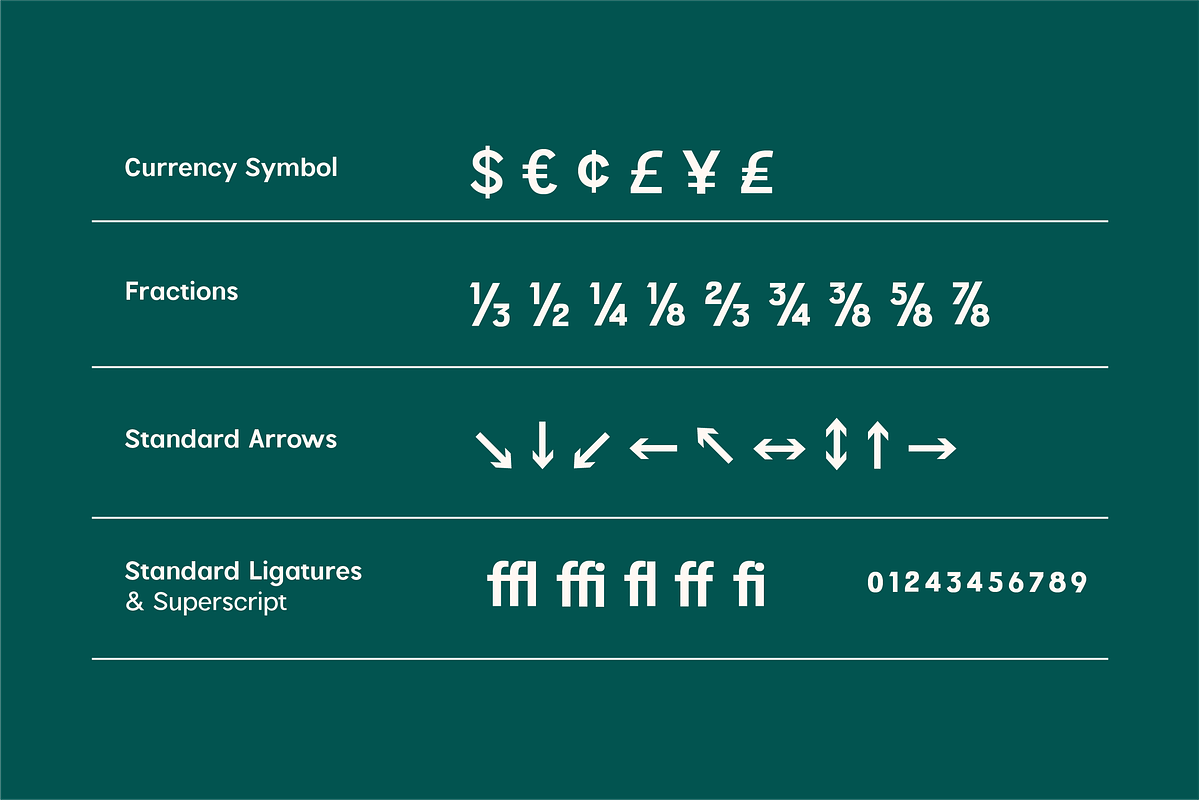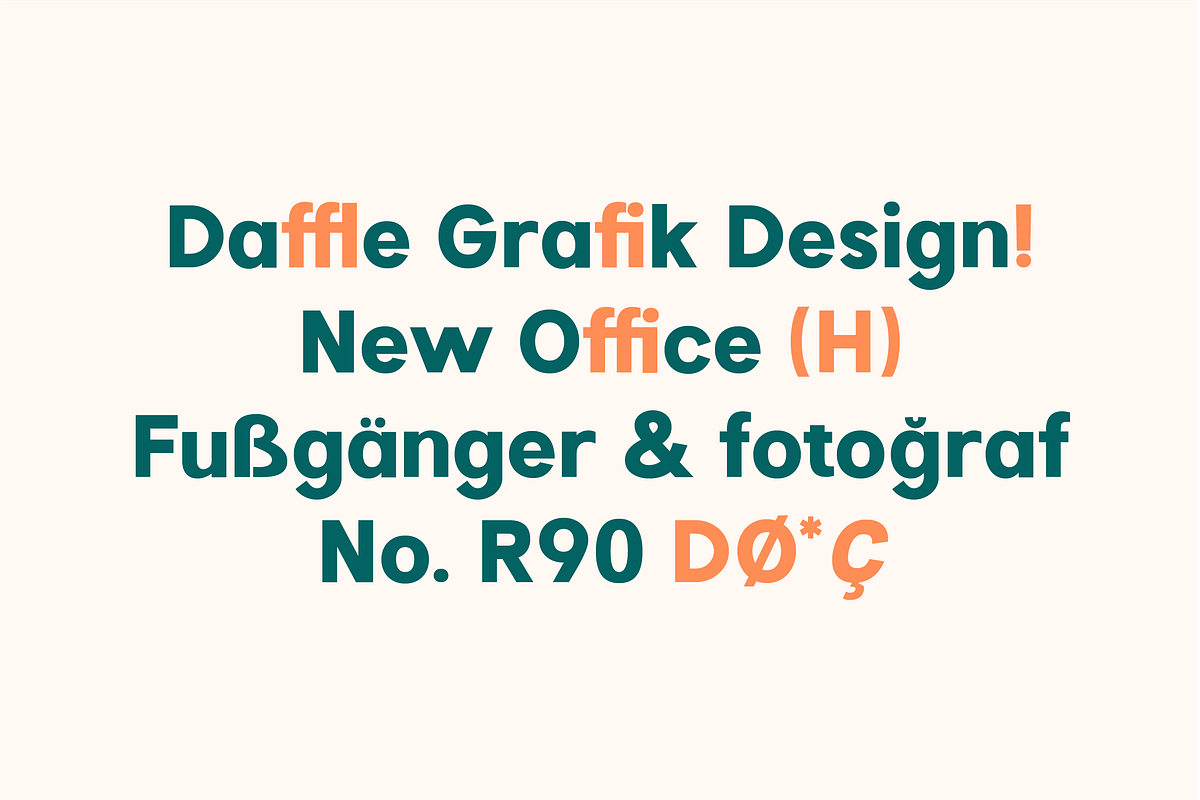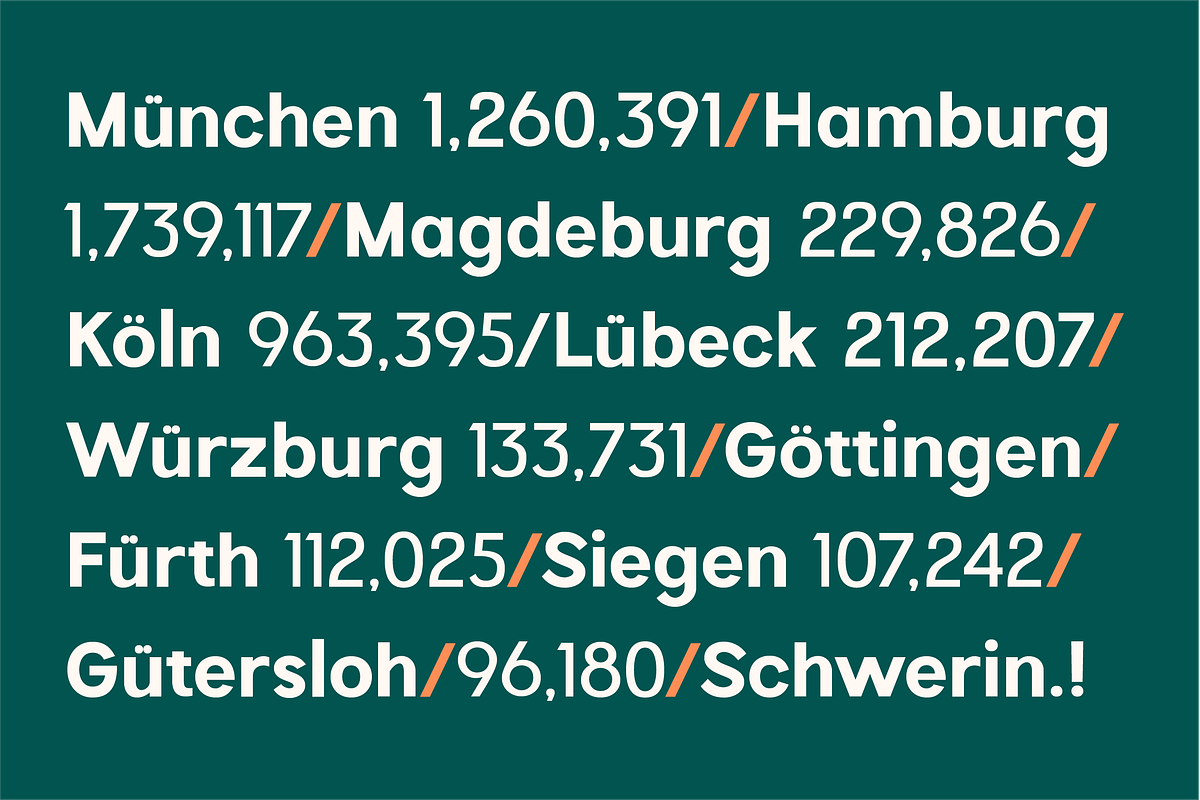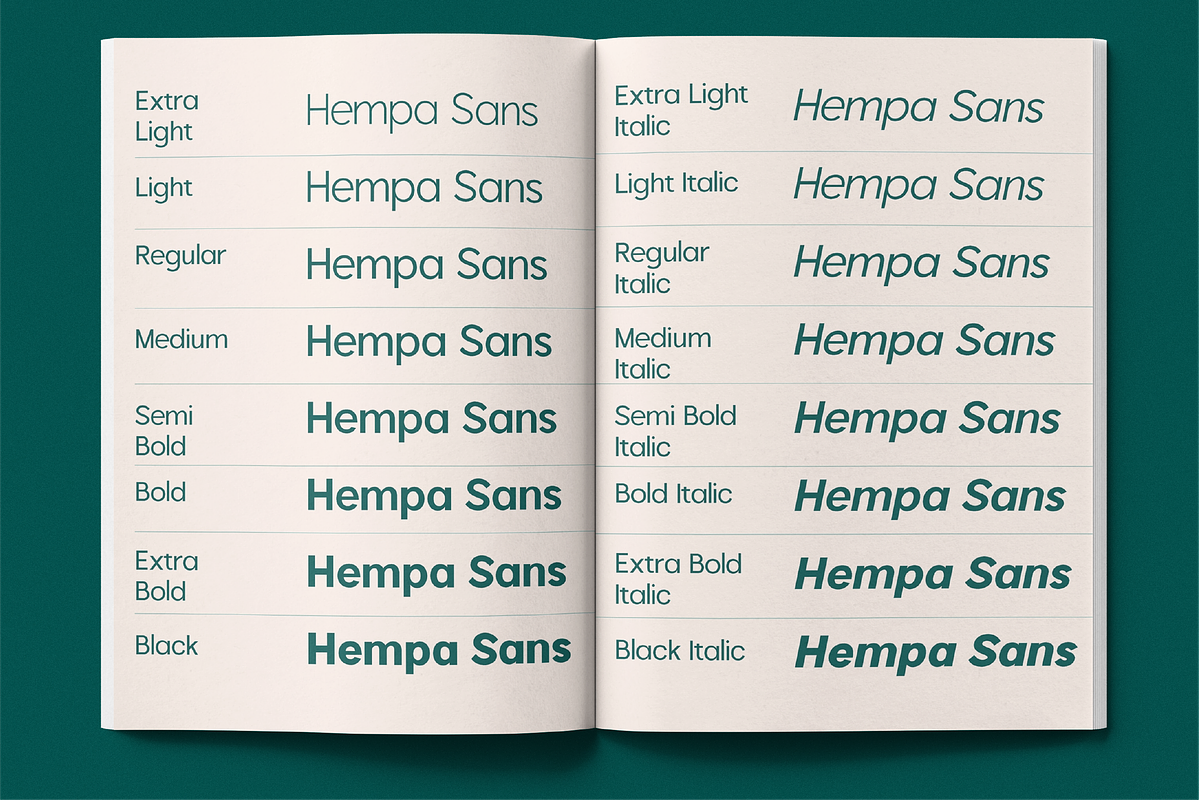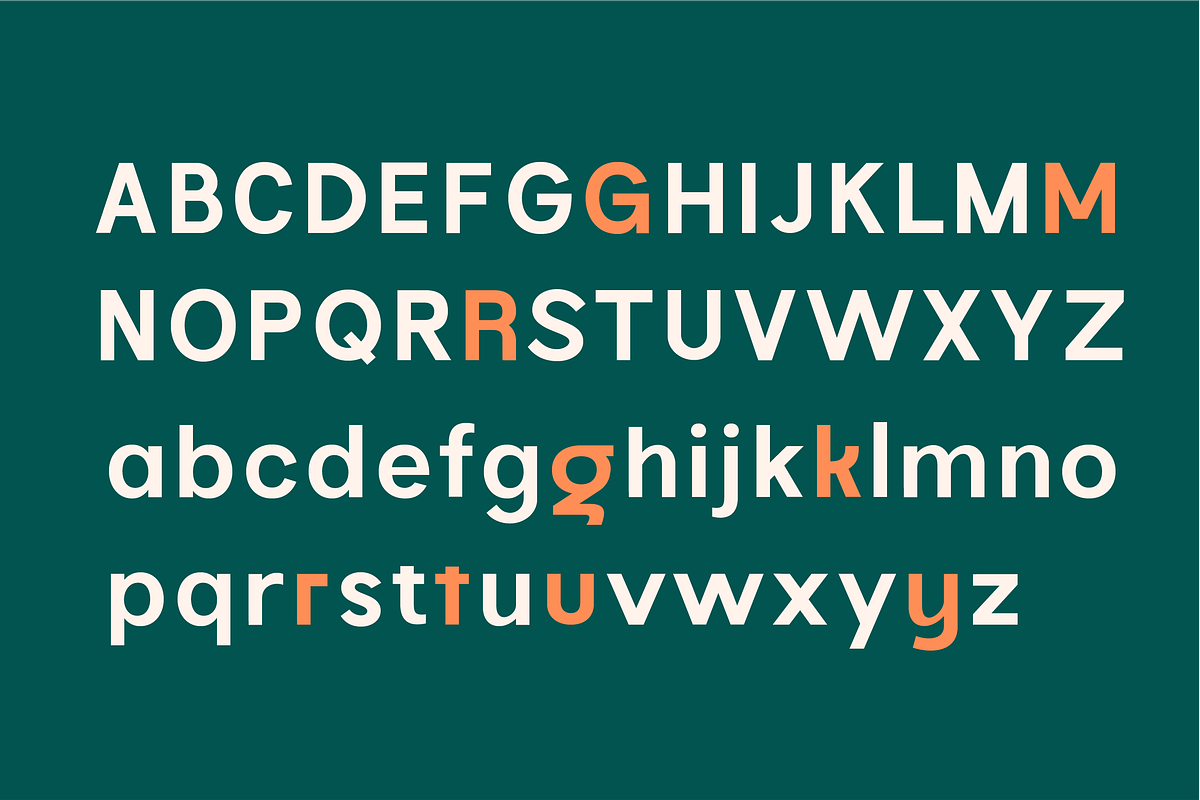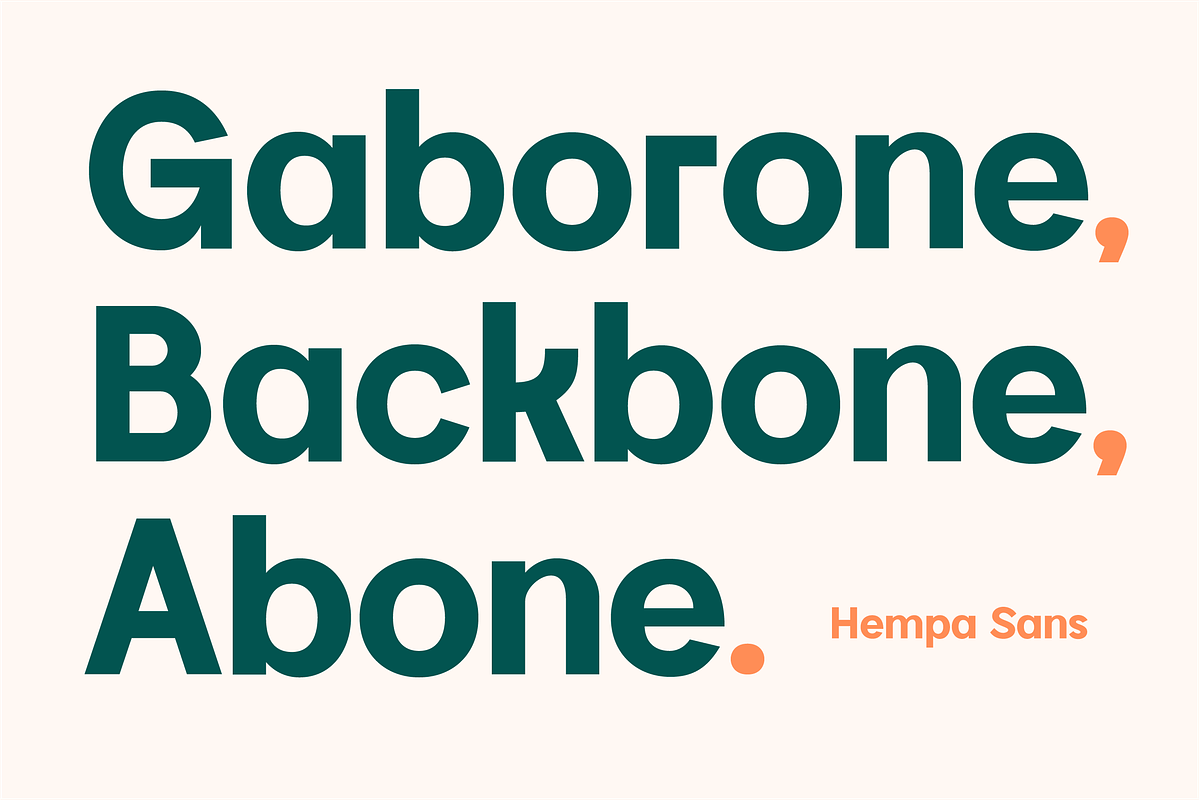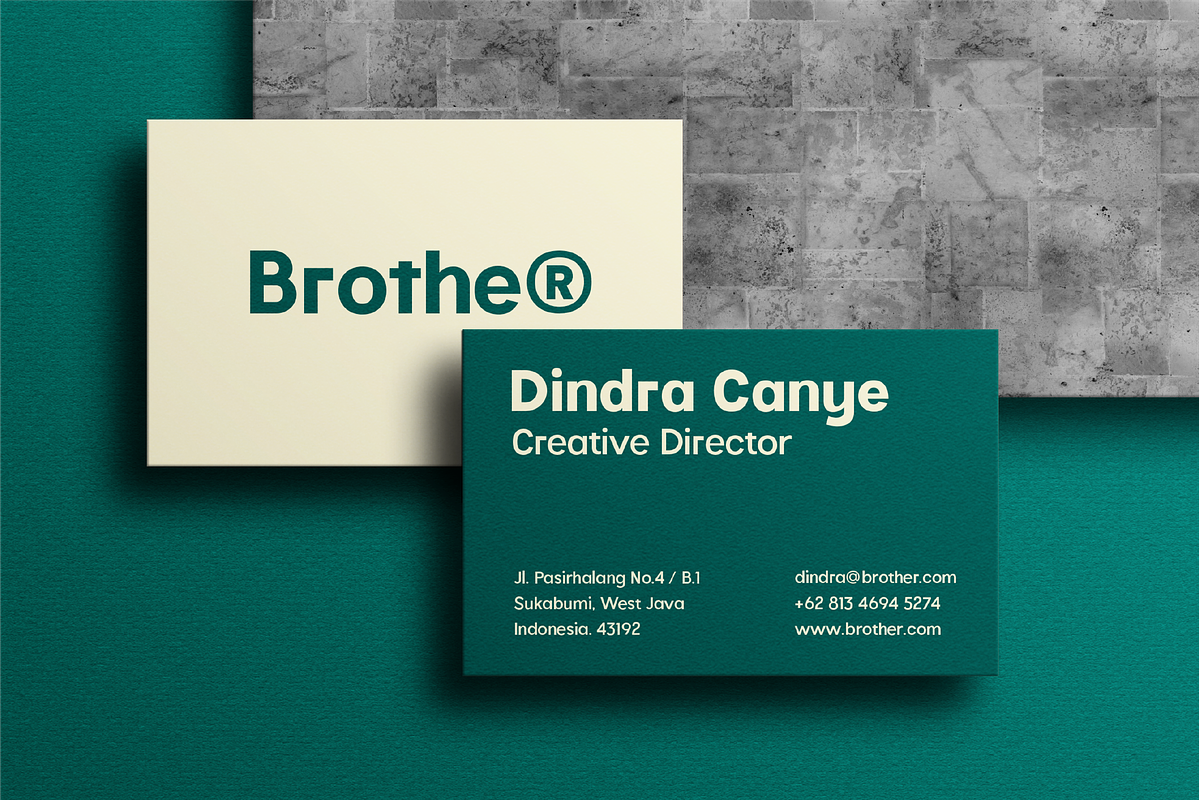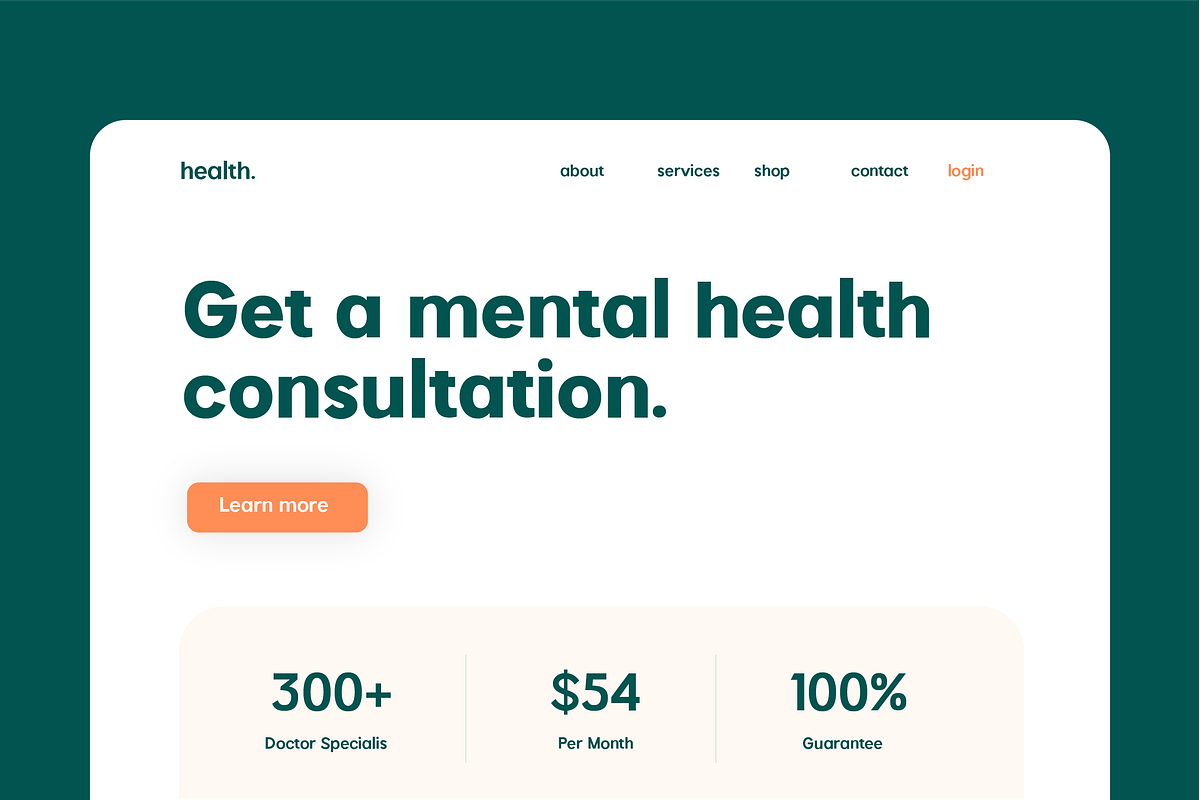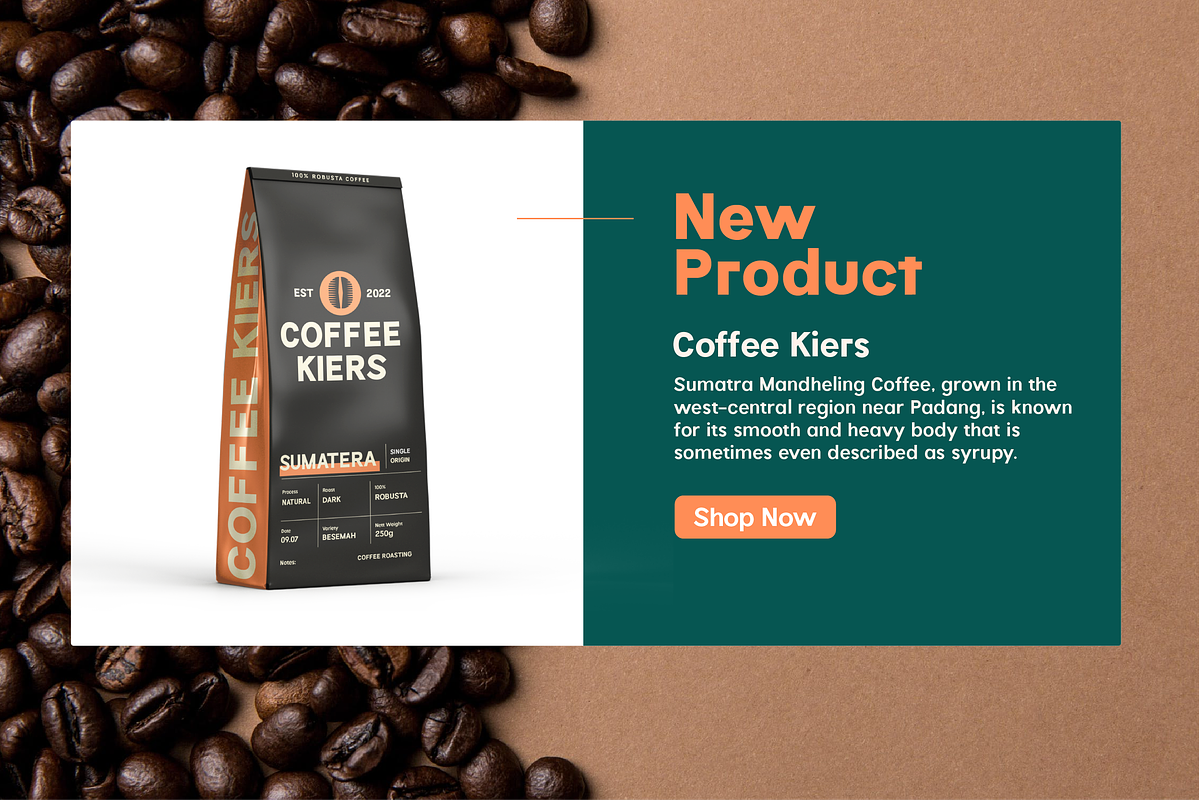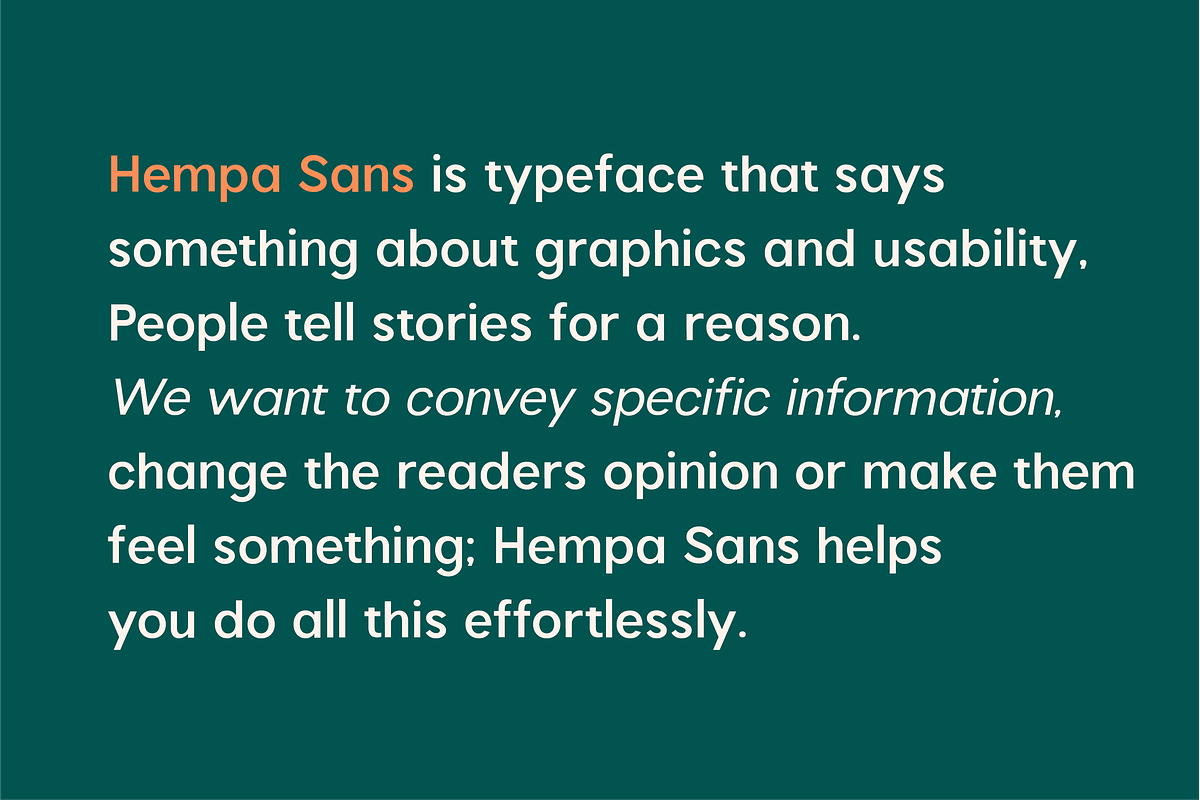
Hempa Sans - Sans Serif Family Fonts
Introducing Hempa Sans Sans Serif Family Fonts Hempa Sans is a modern sans serif font family with a geometric touch. Consists of 16 Styles 8 upright and 8 inclined to match. Thin Weight - Black Designed with strong open-type features in mind. This font has alternate characters in Letters (G, M, R, g, k, r, t, u, y).
Each weight includes extended language support for numbers, arrows, binders, and more. Great for graphic design and any display use. It can easily work for Web, Print, and more.
This typeface comes with a standard 445 character set that supports more than 80 Latin-based languages.